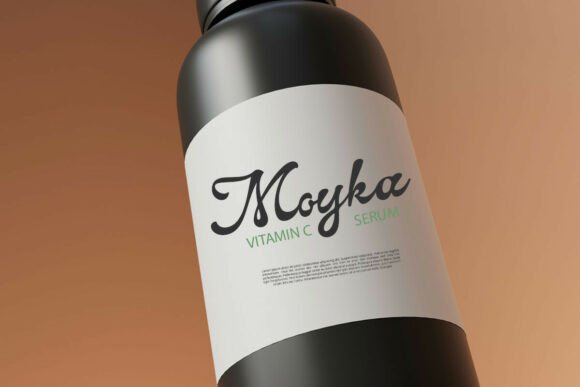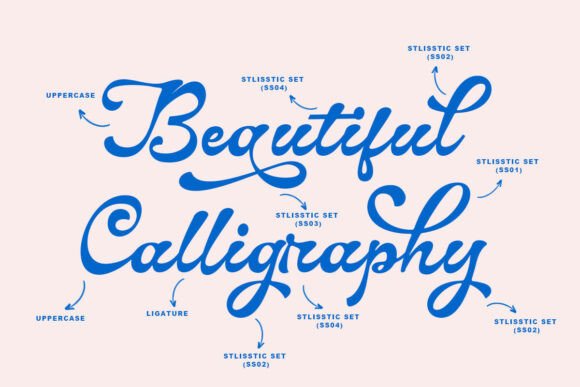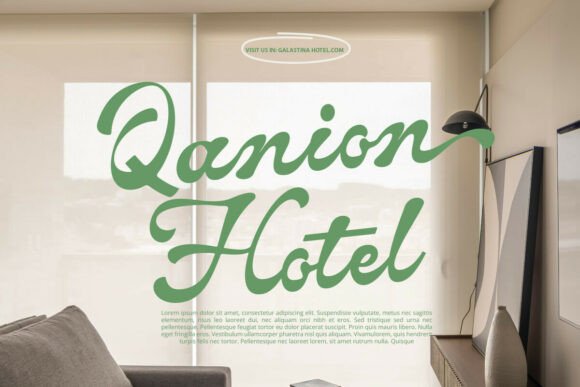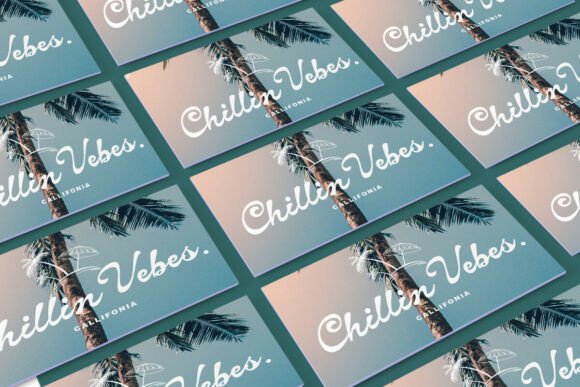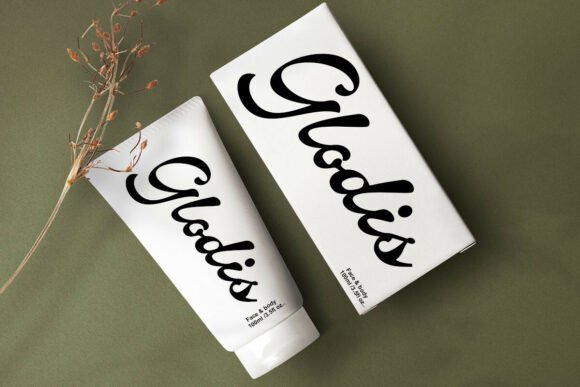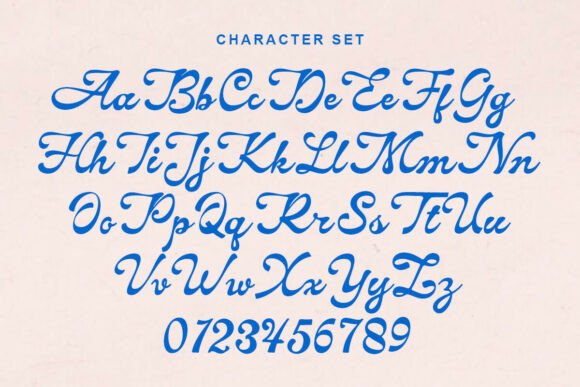
Remember the thrill of discovering a new font that perfectly captures the essence of your idea? It’s like stumbling upon a hidden treasure that elevates your entire design to the next level. For designers, finding that one special font can make all the difference between a good project and a great one.
Enter Alfino Script Font, a bold and beautiful new typeface that’s sure to add a touch of personality to your designs. With its rounded scripts, Alfino Script Font is perfect for crafting unique and eye-catching visuals that stand out from the crowd. Whether you’re working on a branding project, designing invitations, or creating social media posts, this versatile font is sure to be a valuable addition to your toolkit.
Alfino Script Font Key Features
- Font Style: Script Font, ideal for creative and elegant designs
- Unique Characteristics: Features beautiful, flowing connections and subtle flair, adding a touch of sophistication to any design
Alfino Script Font Review
Alfino Script Font is a beautiful, elegant script font that is perfect for creating eye-catching designs. ✨ The flowing curves and subtle flair of the font make it ideal for use in branding, advertising, and other creative applications. The font is highly legible, making it perfect for use in body text as well as headlines.
One of the things that really stands out about Alfino Script Font is its versatility. ✨ It works well in a variety of styles, from modern and sleek to traditional and vintage. The font also comes in a range of weights and styles, making it easy to find the perfect version to suit your needs.
- ⚠️ Not ideal for use in small font sizes – the font’s intricate details may become lost at very small sizes.
Overall, I’m really impressed with Alfino Script Font. ✨ It’s a high-quality font that is sure to add a touch of elegance and sophistication to any design. While it may have some limitations, I think it’s a great choice for designers looking for a beautiful script font.
Getting the Most Out of Alfino Script Font